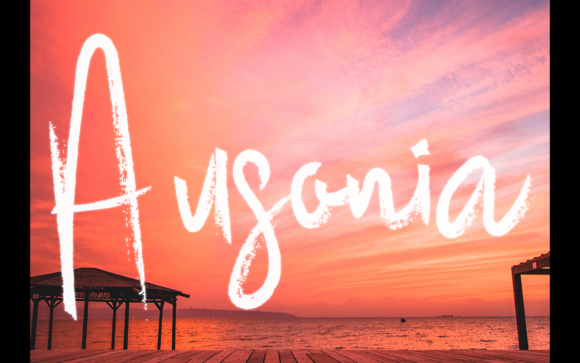
The Ausonia Font: A Striking Brush Font for Creative Projects
Have you ever been in the middle of a design project, and suddenly, you’re stuck on finding the perfect font? I recall a recent experience where I was working on a social media campaign for a client, and I needed a font that would add a personal touch to the posts. After hours of searching, I stumbled upon the Ausonia font, which became an instant favorite. In this article, we’ll dive into the world of Ausonia, exploring its features, uses, and some valuable tips on how to make the most of this amazing brush font.
A Personal Favorite: What I Love About Ausonia
So, what makes Ausonia so special? Here are a few things that I love about this font:
- ✨ Great Readability: Ausonia is incredibly easy to read, even in smaller sizes, making it perfect for a wide range of projects.
- ✅ Rough Effect: The font’s brush-like texture adds a unique, organic feel to your designs, giving them a personal touch.
- 🎨 Versatility: Ausonia can be used for social media posts, Instagram stories, labeling, clothing, books, album covers, posters, and any printable project you can think of.
While Ausonia is an amazing font, there are a few things to keep in mind:
- 🤔 Limited Formality: Due to its brush-like nature, Ausonia might not be the best choice for very formal or professional projects.
- ⚠️ Kerning Issues: As with any font, you might encounter some kerning issues, especially when using it in larger sizes or pairing it with other fonts.
- Take advantage of OpenType features, such as glyphs and stylistic alternates, to add more variety to your text.
The Story Behind Ausonia: Designer Inspiration
While the true story behind Ausonia’s creation might be unknown, it’s easy to imagine that the designer was inspired by the world of hand-painted signs, street art, and vintage typography. Perhaps they wanted to create a font that would bring a touch of warmth and personality to digital designs. Whatever the inspiration, Ausonia has become a beloved font among designers and crafters.
| Q: What type of projects is Ausonia best suited for? | A: Ausonia is perfect for creative projects like social media posts, Instagram stories, labeling, clothing, books, album covers, posters, and any printable project. |